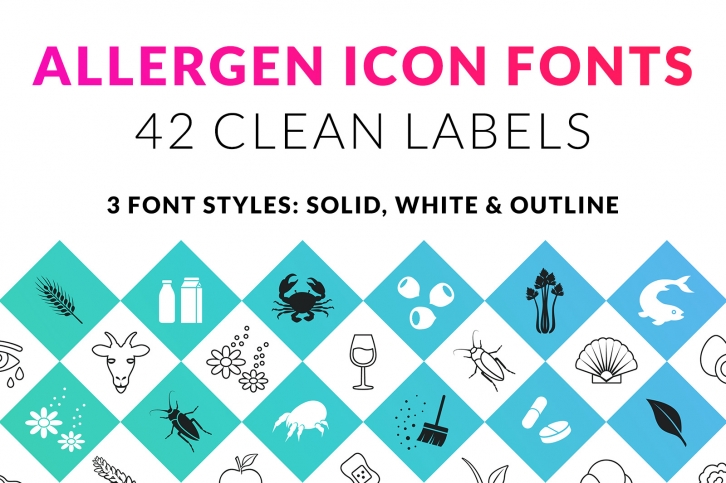
This allergens vector icon font is a typeface with 34 common allergy icons (allergies like gluten, cow milk and soy beans, but also plant pollens, dust mytes and drug allergies) for use in:
• Food manufacturing industry
• Retail
• Packaging design industry
• Hotel and catering industry
The characters of this font are stackable: you can make your own combinations of solid or outline characters and backgrounds to fit your design perfectly.